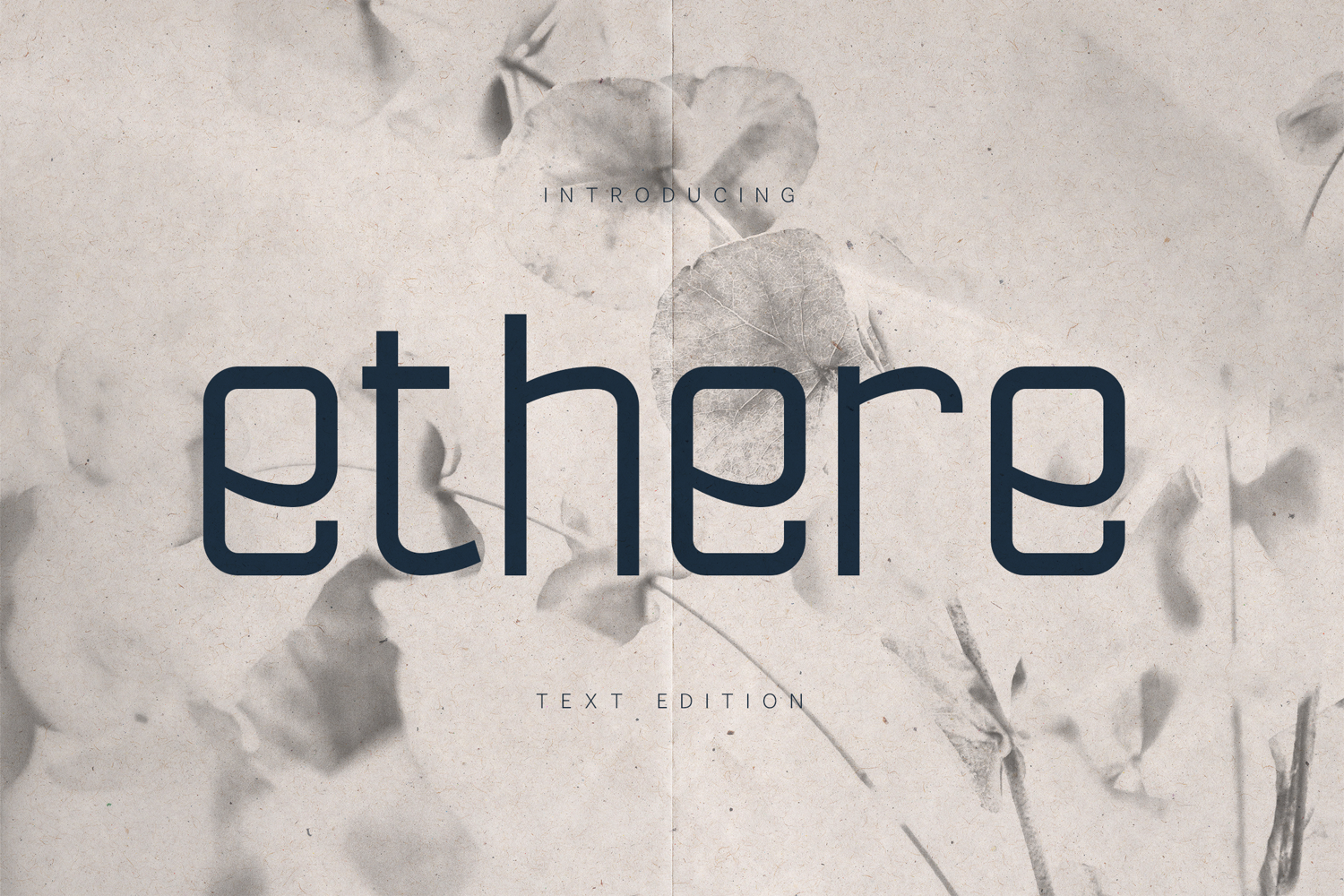
Ethere Text Edition
Ethere – Text Edition is a modern, minimalist sans-serif typeface designed for clarity, softness, and long-form readability. With rounded geometry, open letterforms, and a calm visual rhythm, Ethere feels contemporary yet human—ideal for projects that require precision without harshness.
Built for text-heavy layouts, Ethere performs beautifully across branding systems, editorial design, user interfaces, web content, presentations, and digital products. Its balanced proportions and smooth curves ensure excellent legibility at small sizes while remaining refined and expressive in larger settings.
The font includes uppercase and lowercase characters, numerals, punctuation, and extensive multilingual support, making it suitable for international use. Delivered in .otf font files, Ethere integrates seamlessly into all major design applications and professional workflows.
Ethere – Text Edition is designed for designers who value subtlety, functionality, and modern typography that feels quiet, thoughtful, and future-ready.